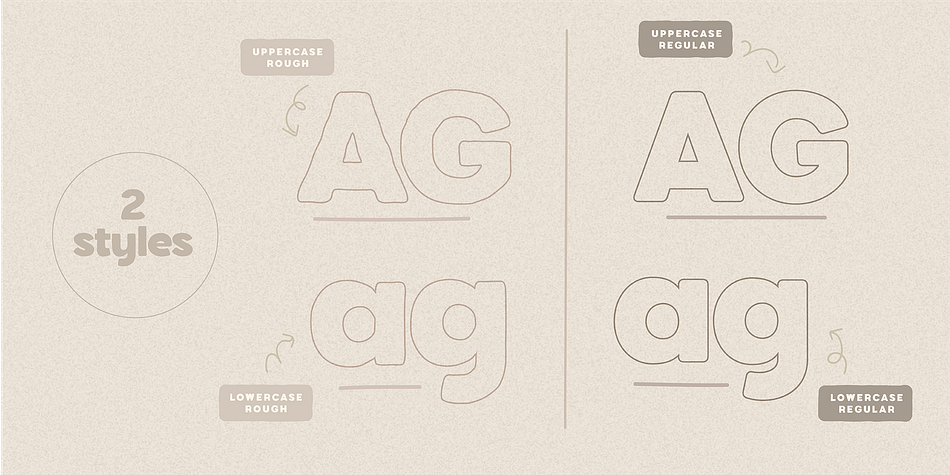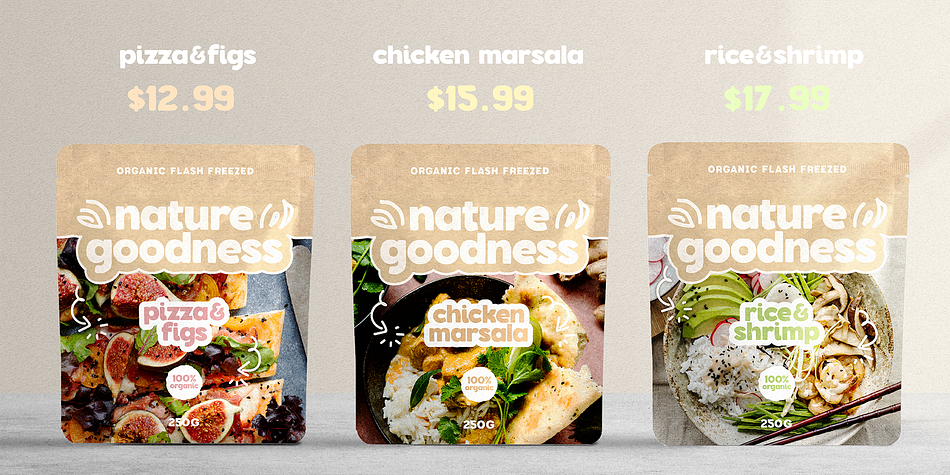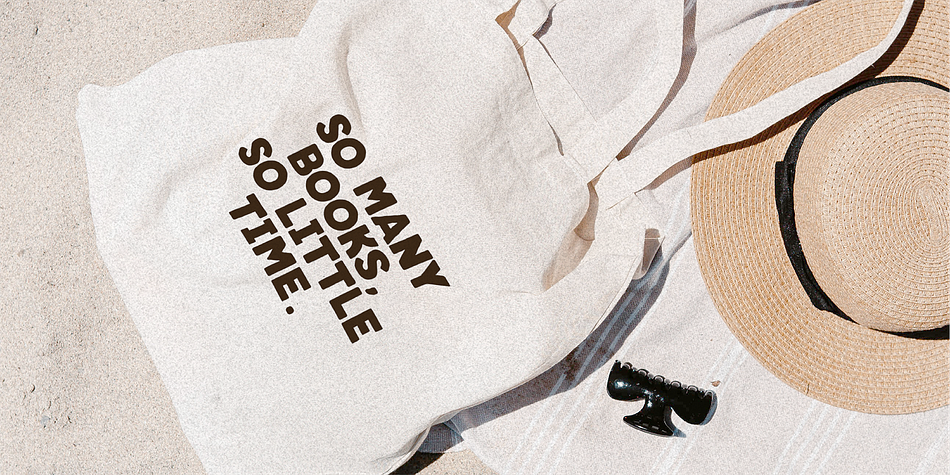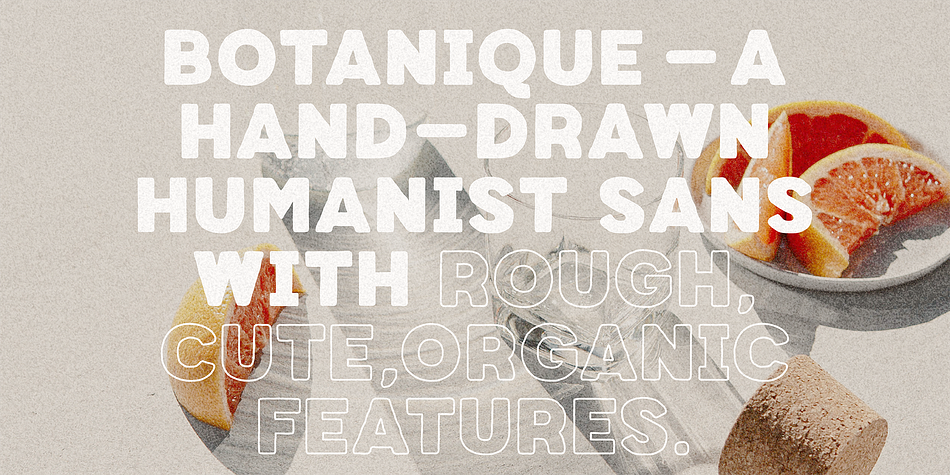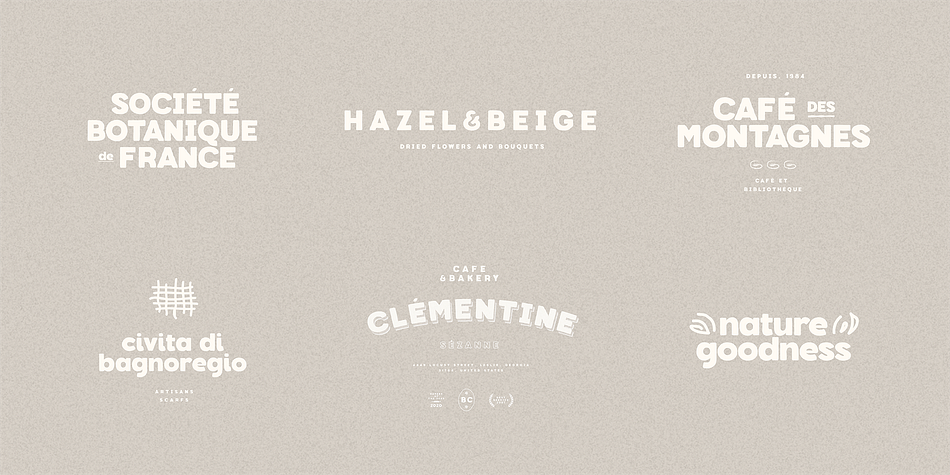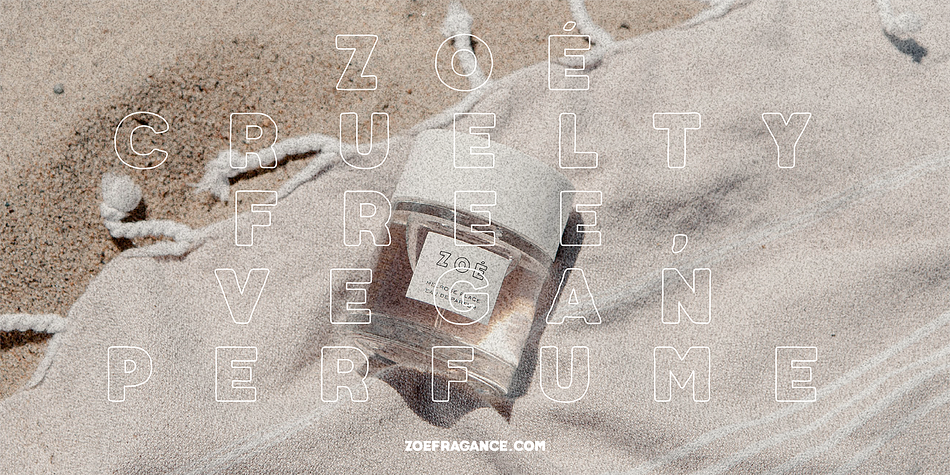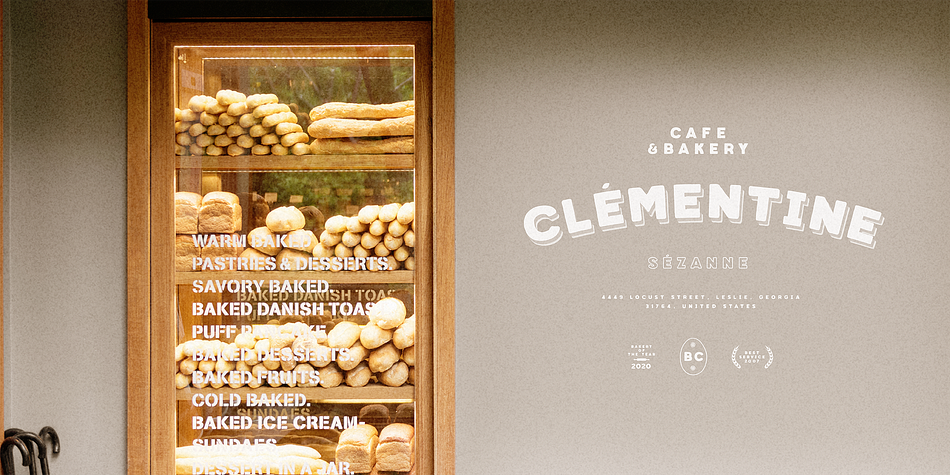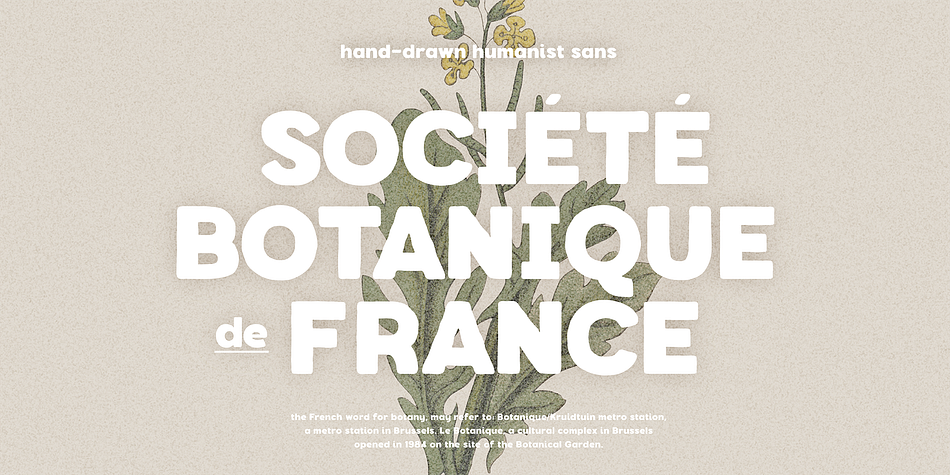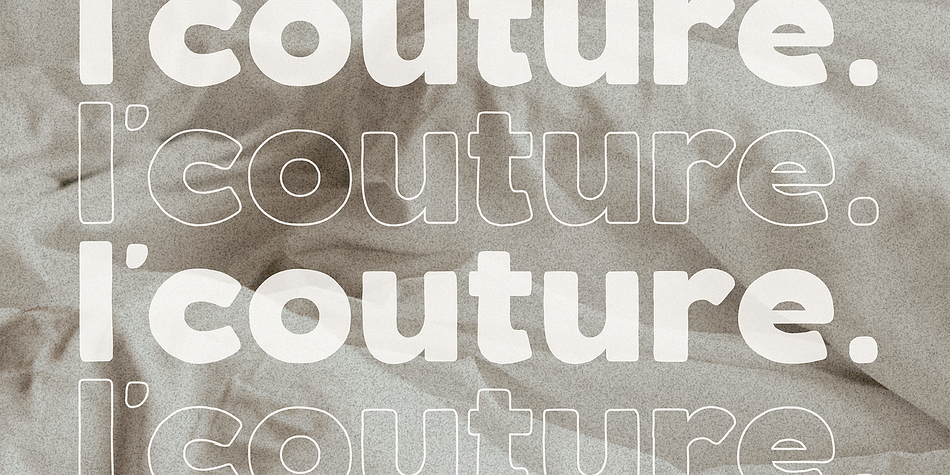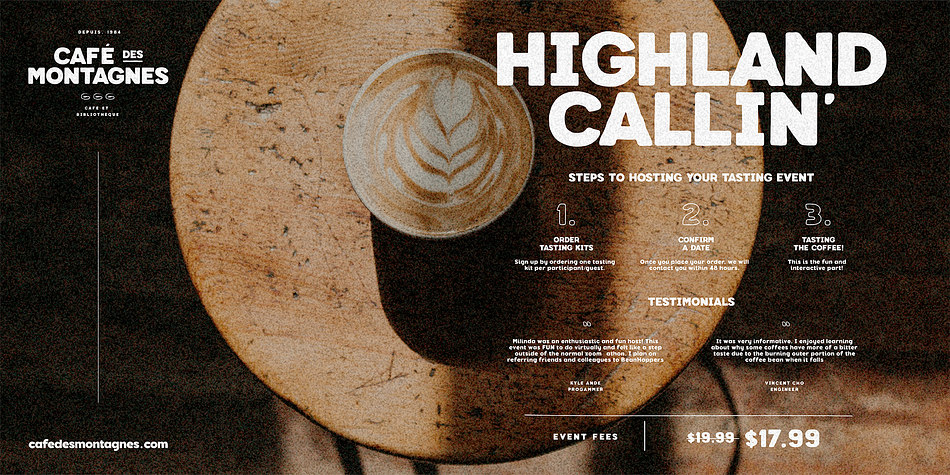
HV Botanique
HV Botanique is a display sans font family. This typeface has two styles and was published by Harmonais Visual.
Botanique - a hand-drawn humanist sans with rough, cute, organic features. This font is specially designed for organic, humanist, elegant projects. Botanique is perfectly suitable for creating a clean design with a touch of rough and rustic. You can use it for logos, packaging, social media… The possibilities are endless. Botanique included 6 free logo templates. Enjoy!